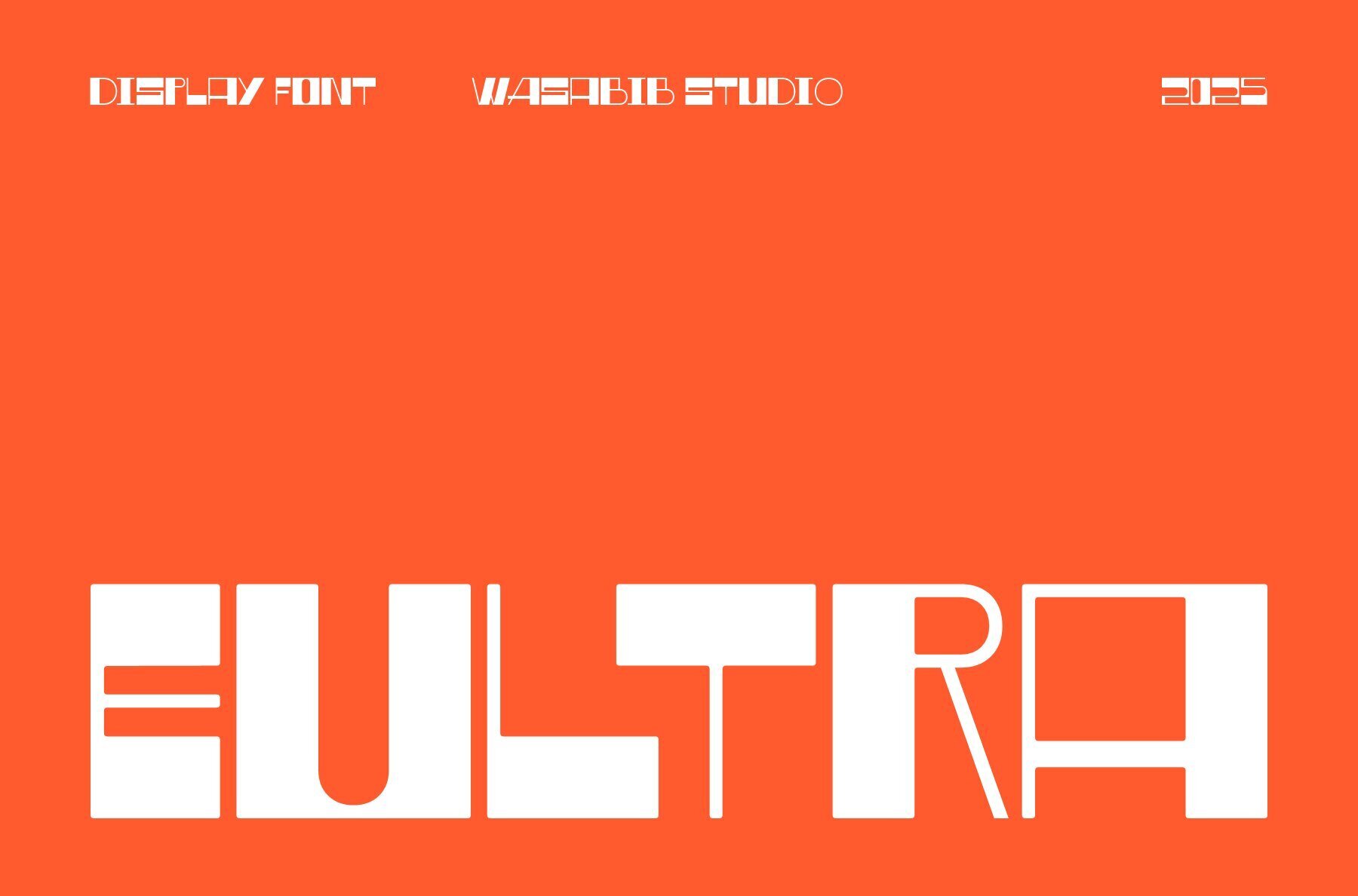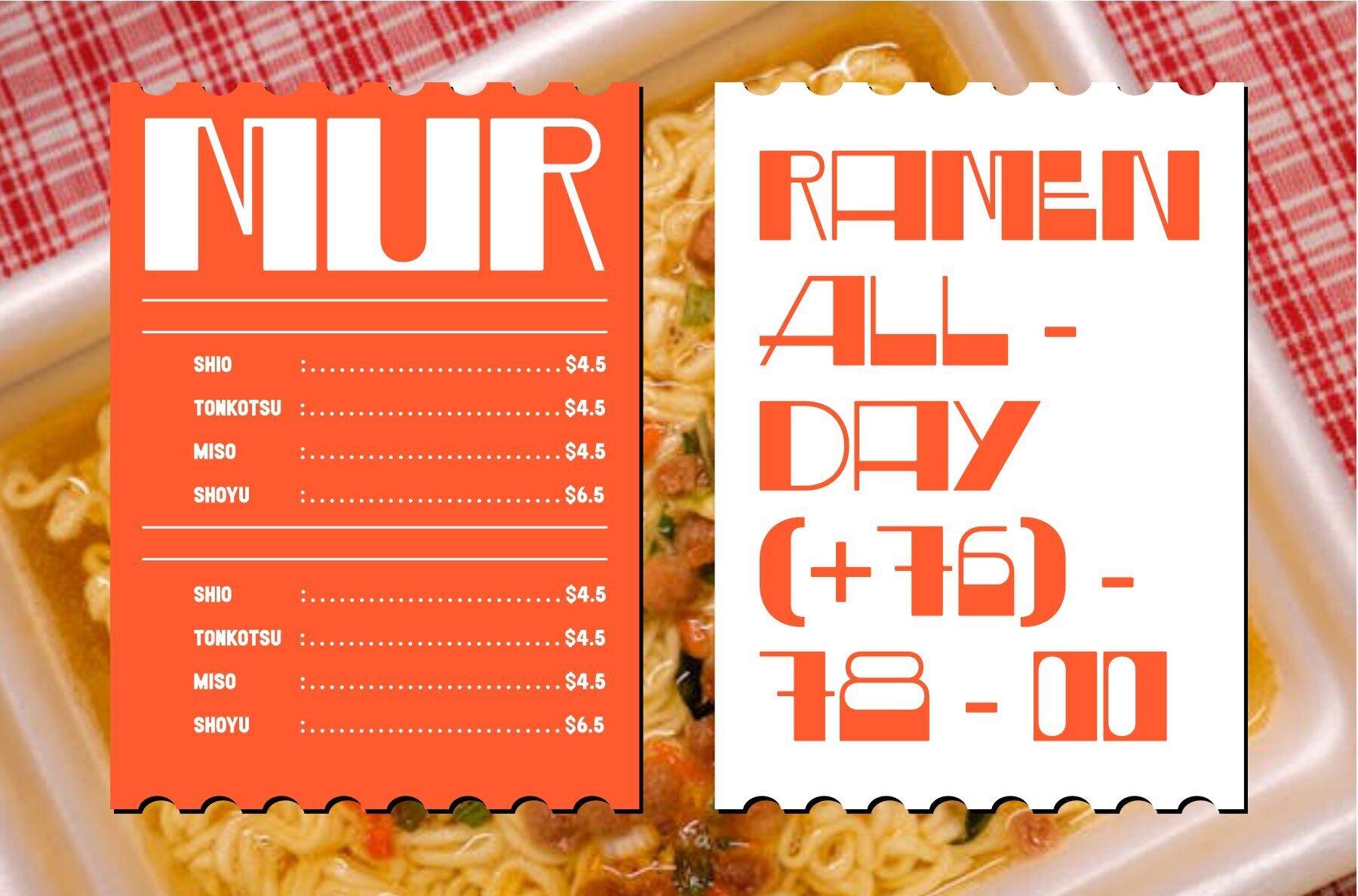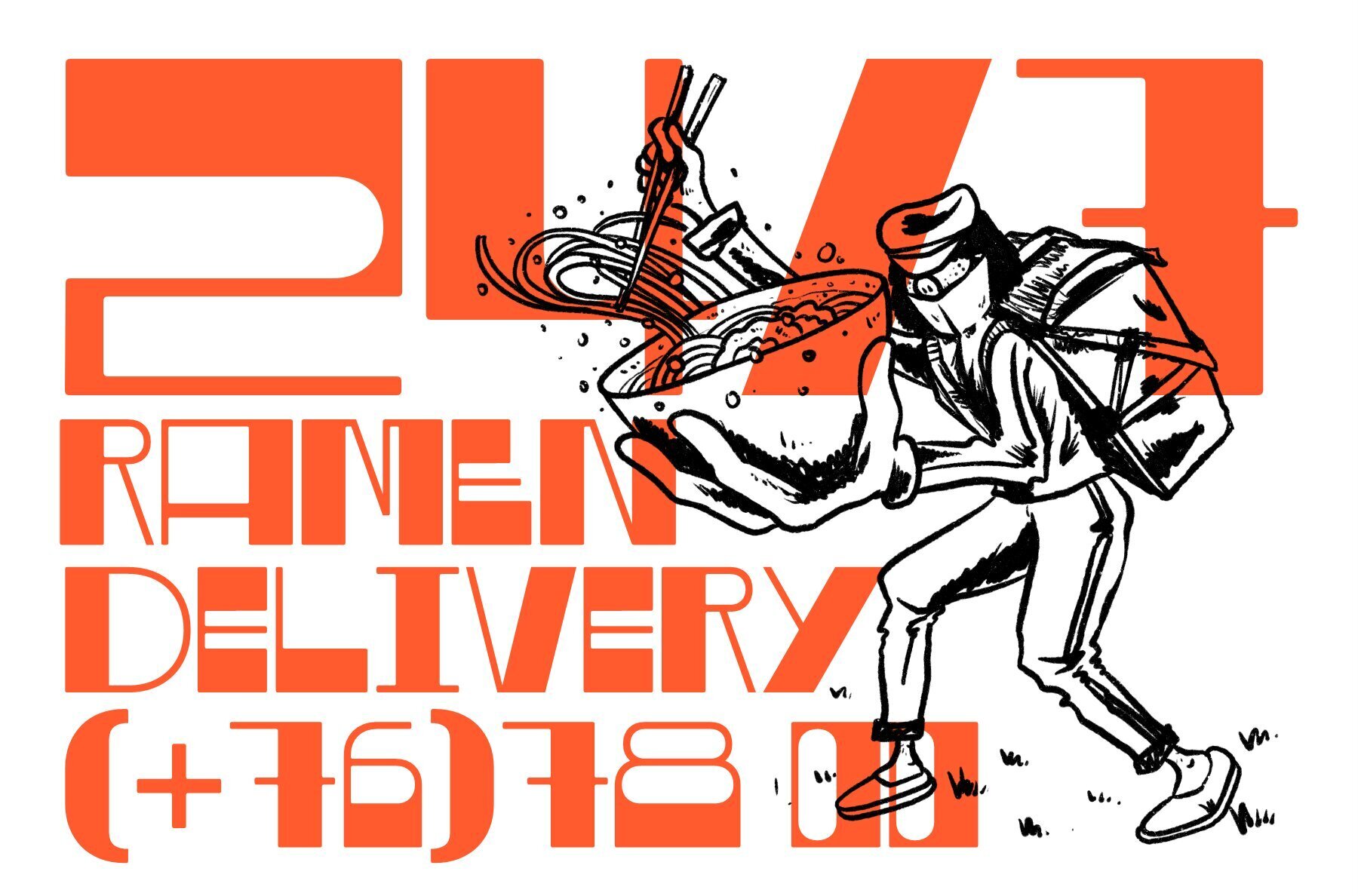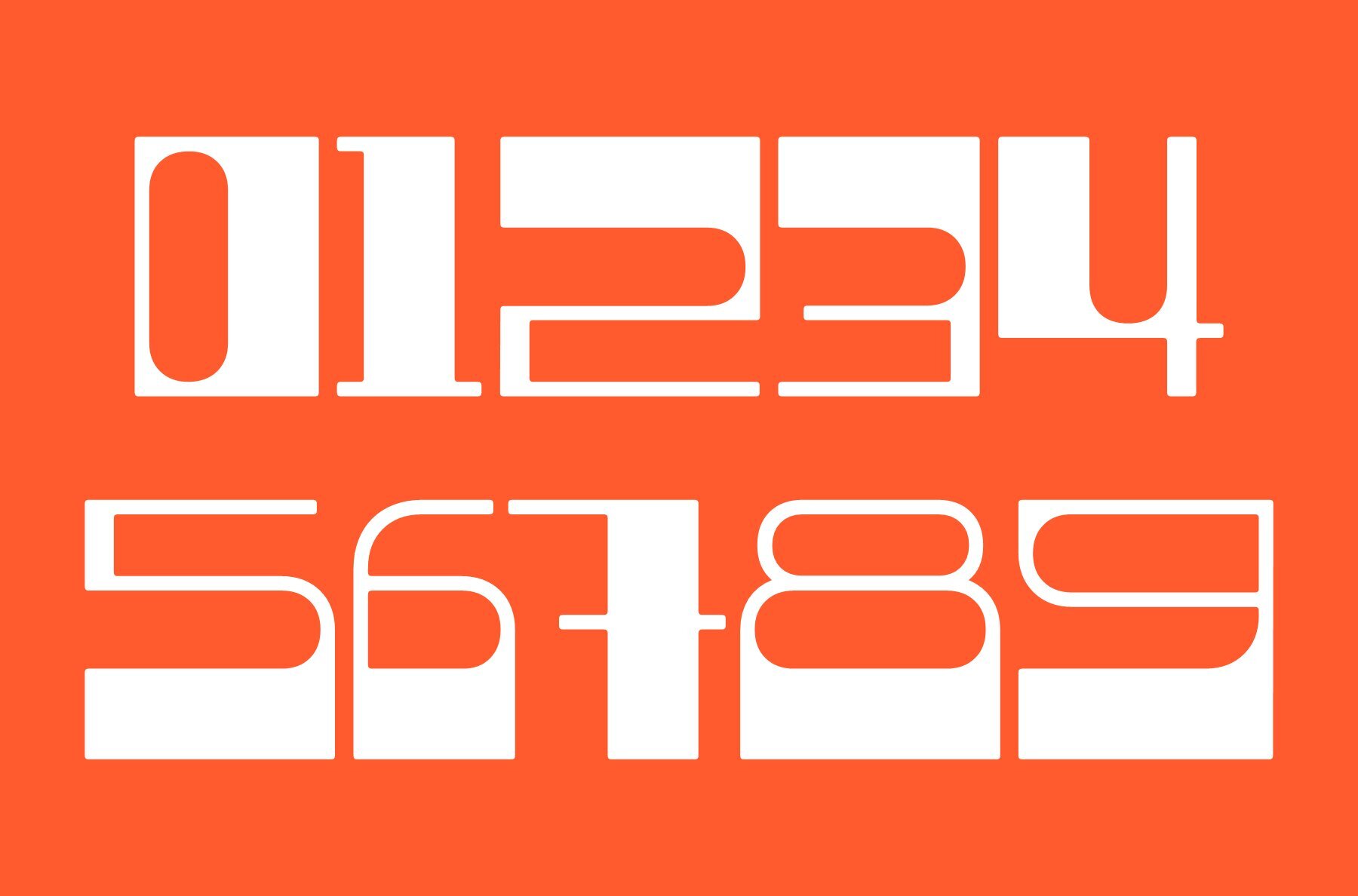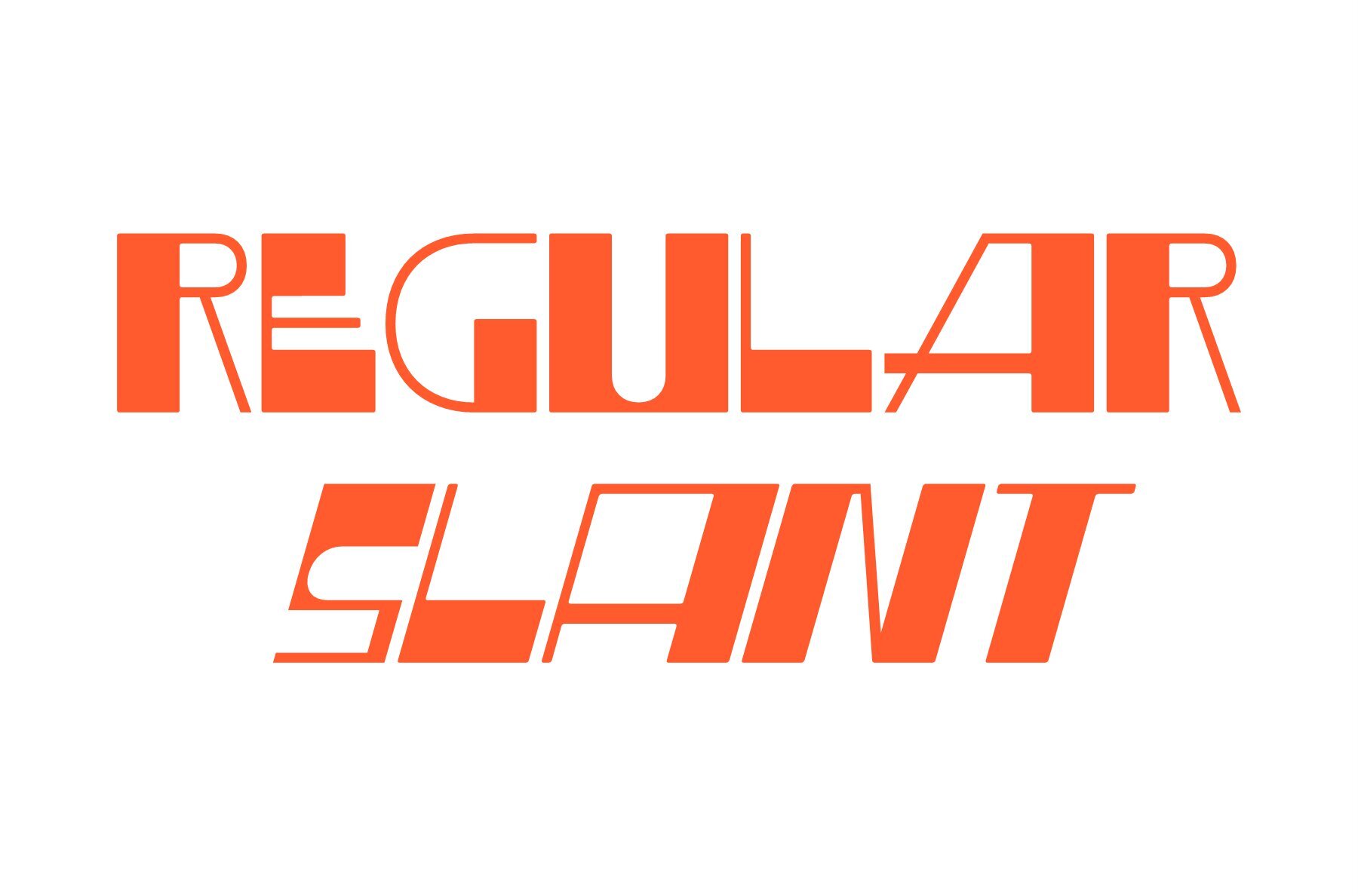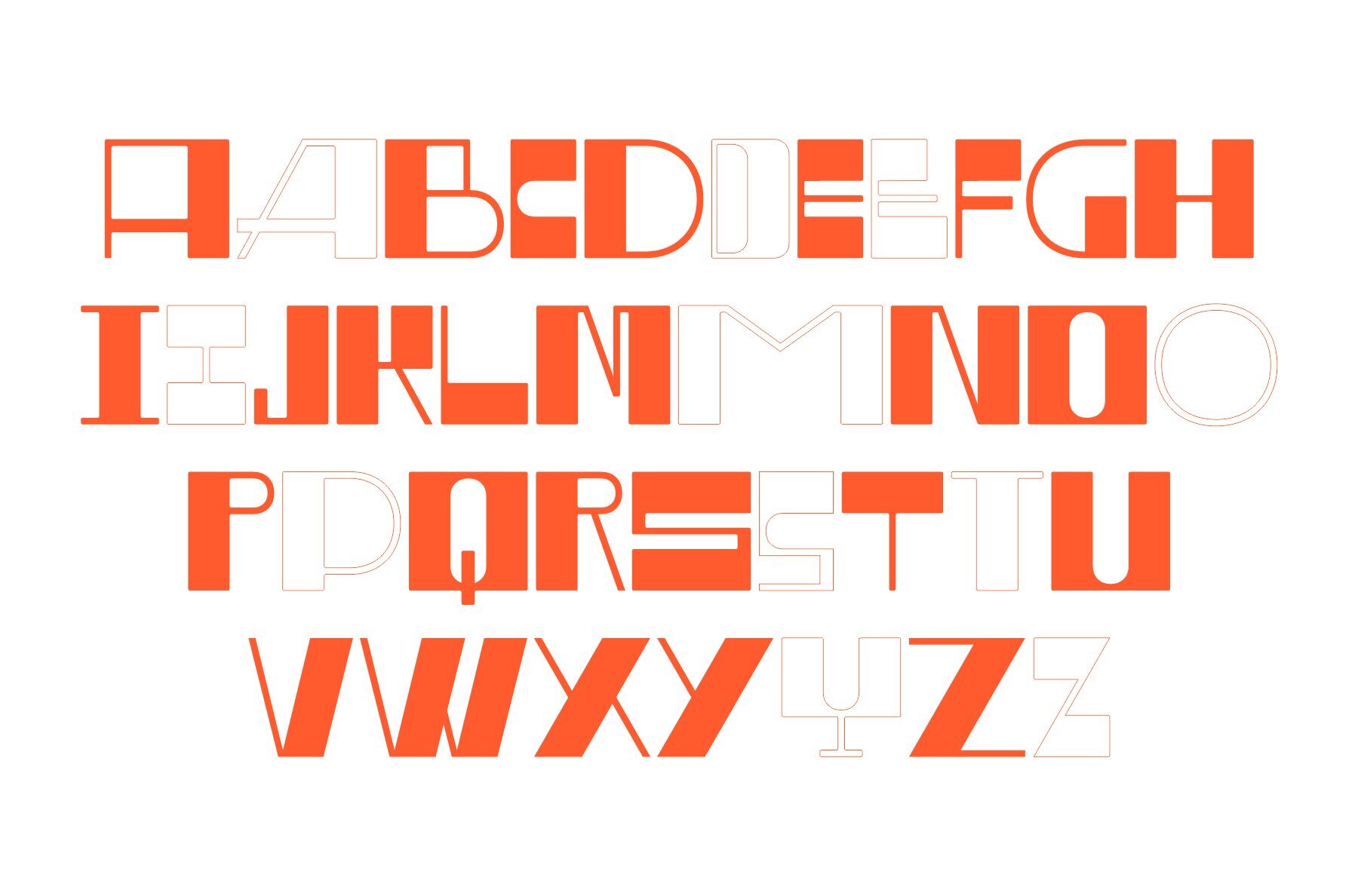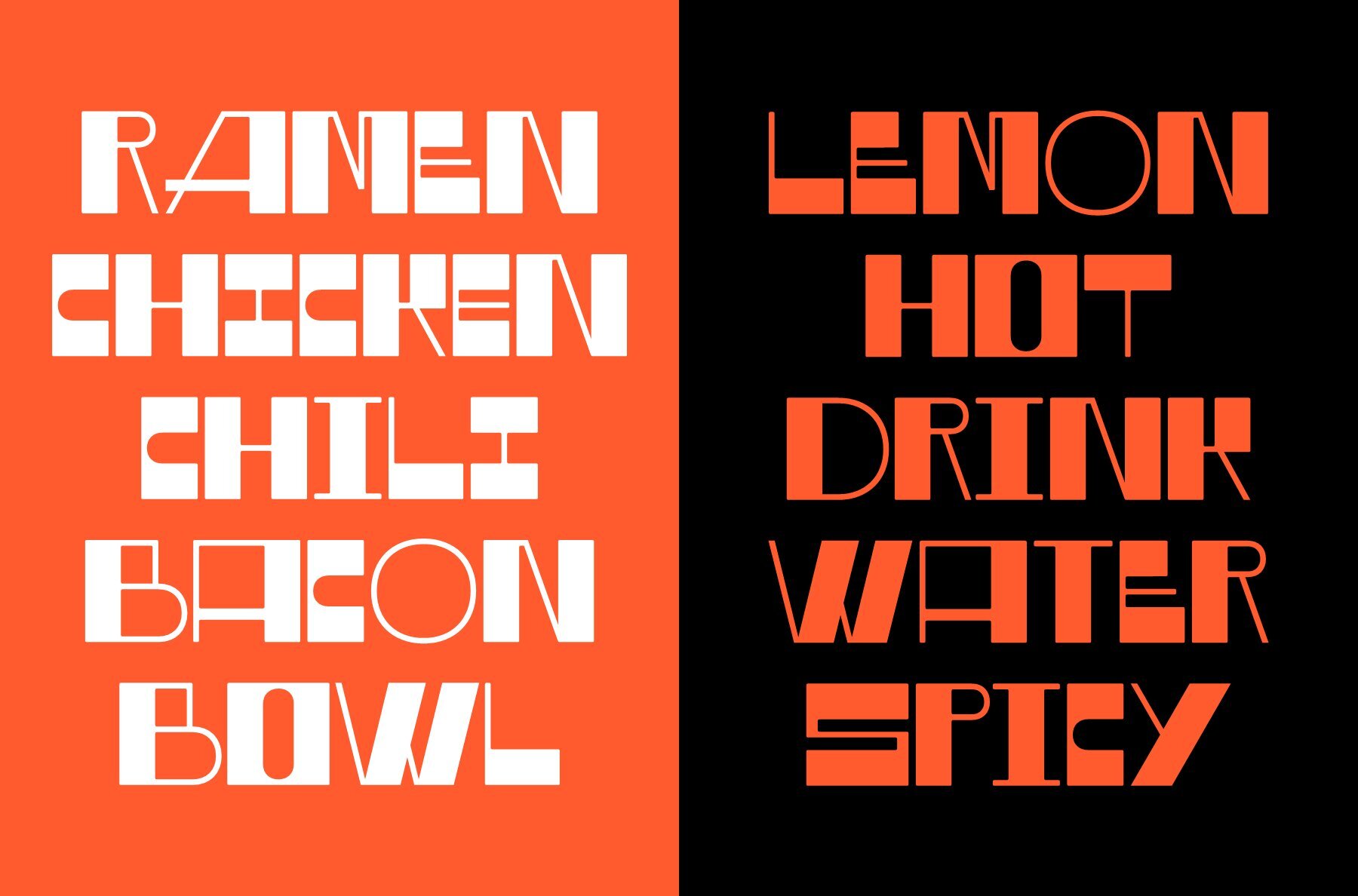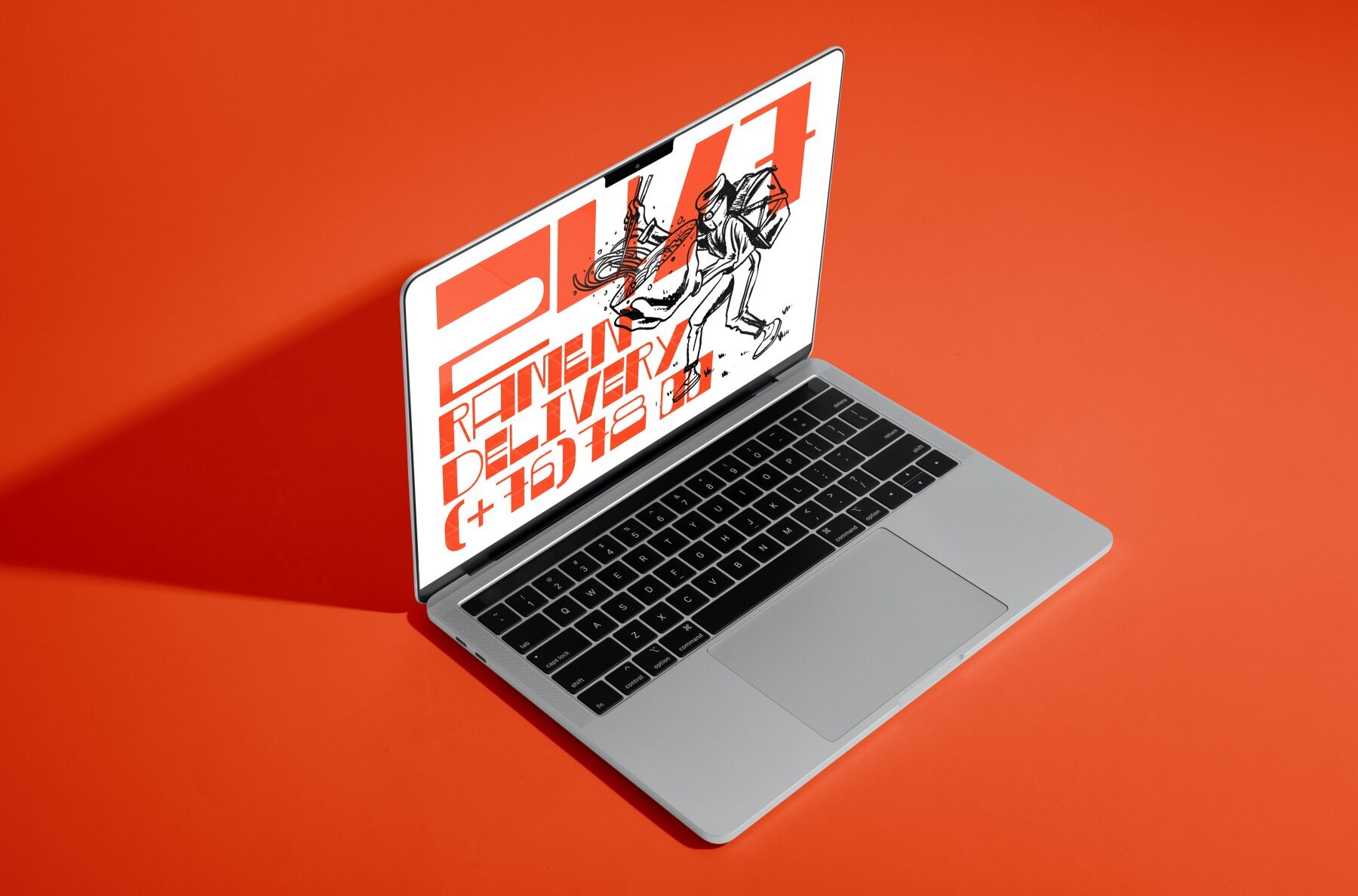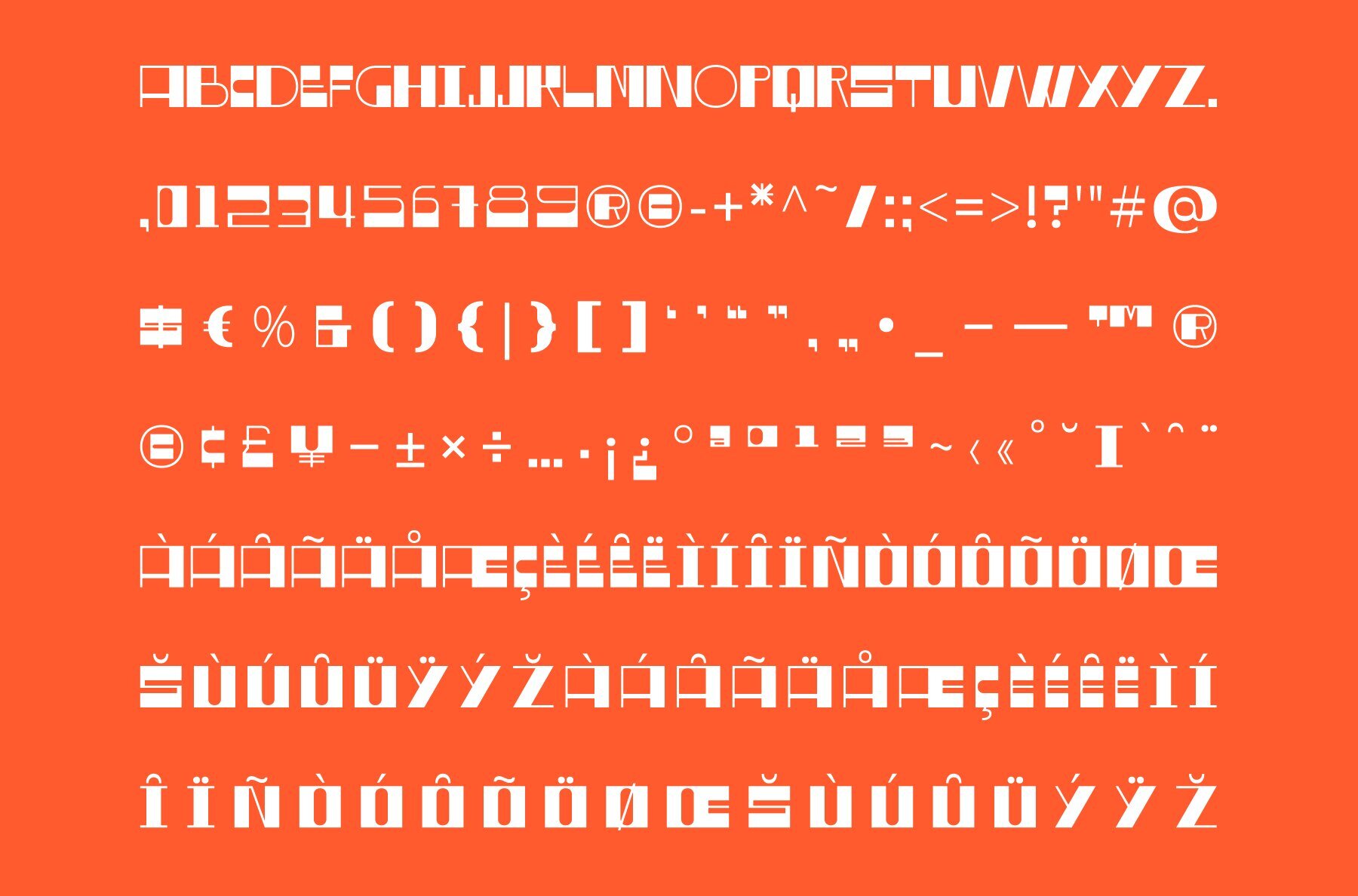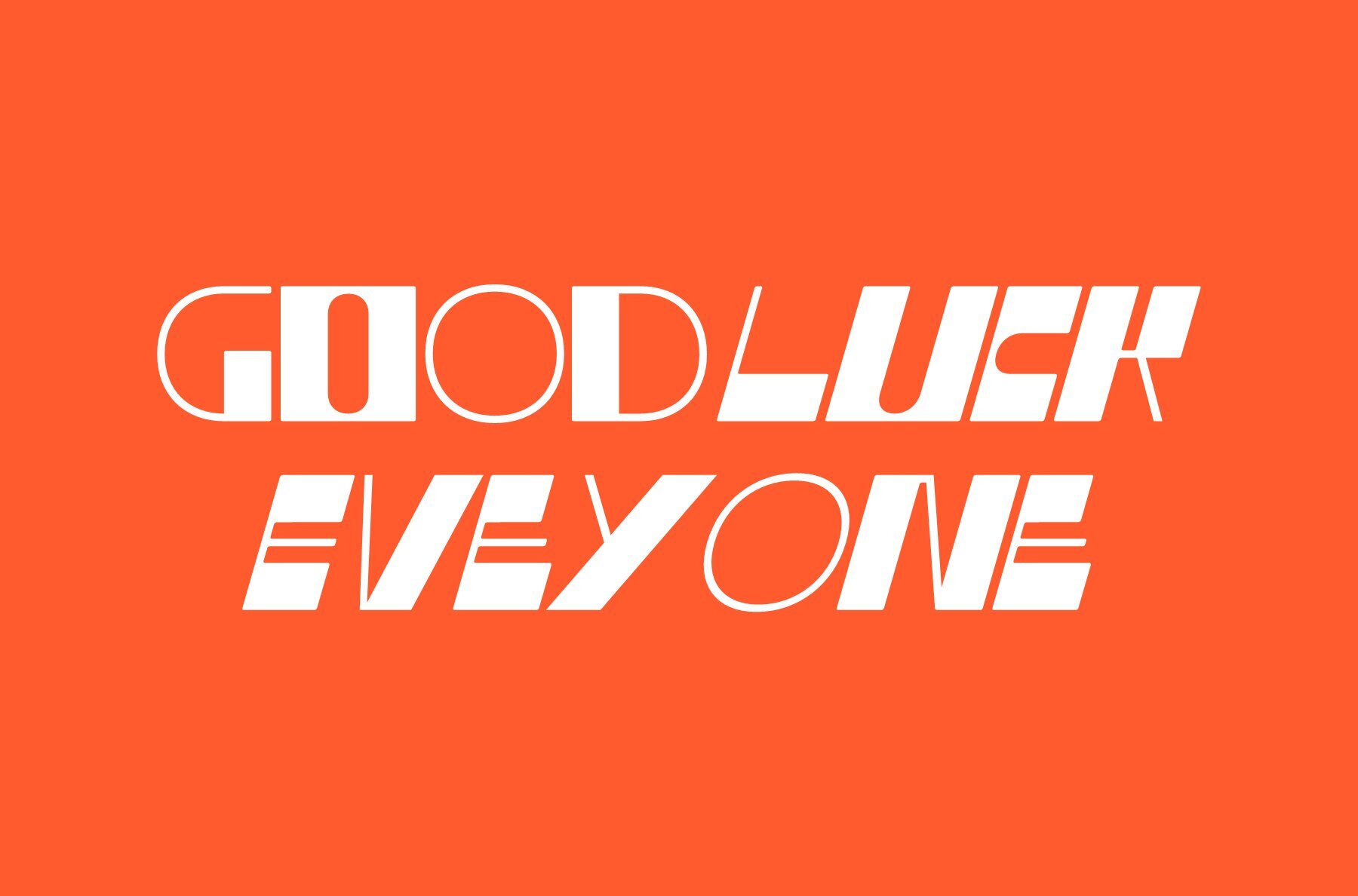
Eultra Font
Eultra Regular
Eultra Slant
Eultra is a striking display font renowned for its unique characters, designed to make a bold statement in any design project. Its eye-catching style ensures it stands out, offering a touch of originality and personality. Whether used for posters, logos, or invitations, Eultra's unconventional letterforms and creative details make it a perfect choice for creating visually impactful and memorable designs.Eultra: Distinctive Display Font with Unique Characters
Visual Impact and Originality